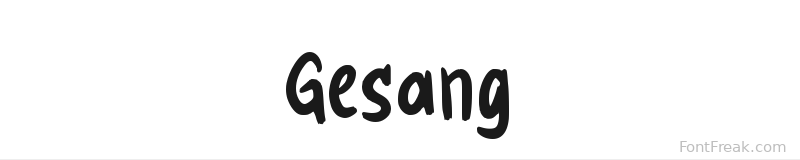
Gesang
The Gesang font, crafted by Wahyu Eka Prasetya, is a delightful handwritten typeface that exudes warmth and personality. This font is characterized by its playful strokes and dynamic forms, making it a standout choice for those seeking a touch of whimsy in their designs. The stroke weight varies subtly, contributing to a lively appearance, while the moderate contrast enhances readability. The spacing is thoughtfully balanced, allowing each letter to breathe while maintaining a cohesive flow throughout the text. The gentle curves and friendly demeanor of the characters add a unique decorative element, making it visually appealing for a variety of applications.
Gesang is particularly well-suited for wedding invitations, where its charming style can evoke romance and joy. It also shines in crafting eye-catching movie posters, lending a touch of creativity that can capture an audience's attention. Small business owners can utilize this font for restaurant menus, giving a personal and inviting feel that encourages customers to explore the offerings. Additionally, content creators will find it perfect for social media graphics, enabling them to convey a casual yet engaging message to their followers.